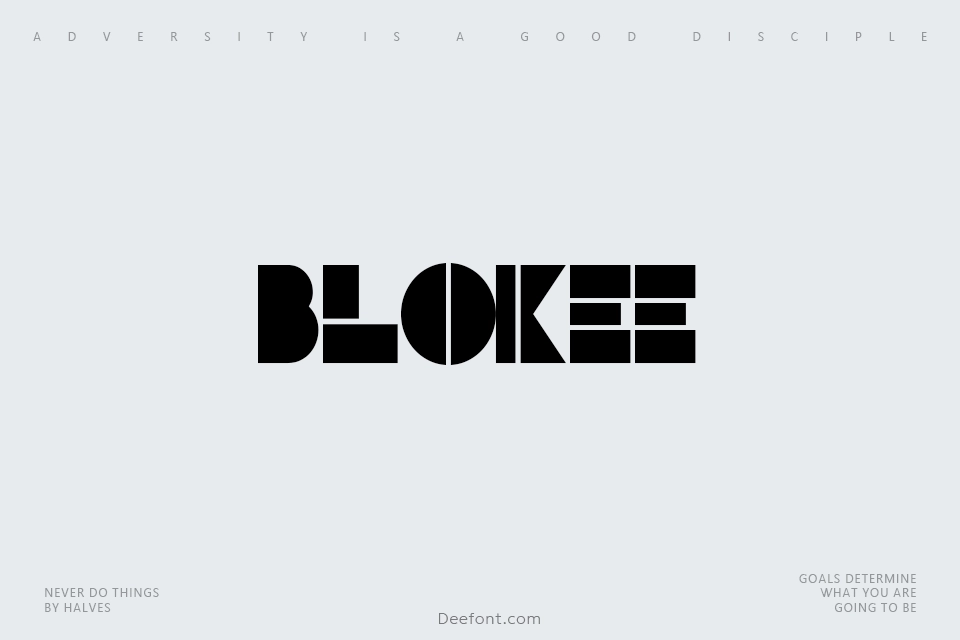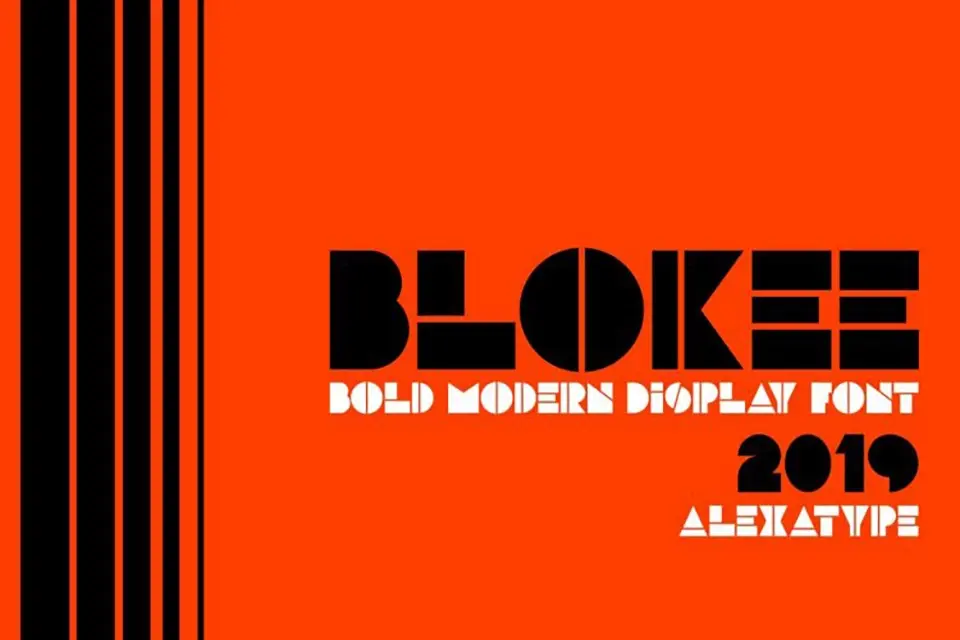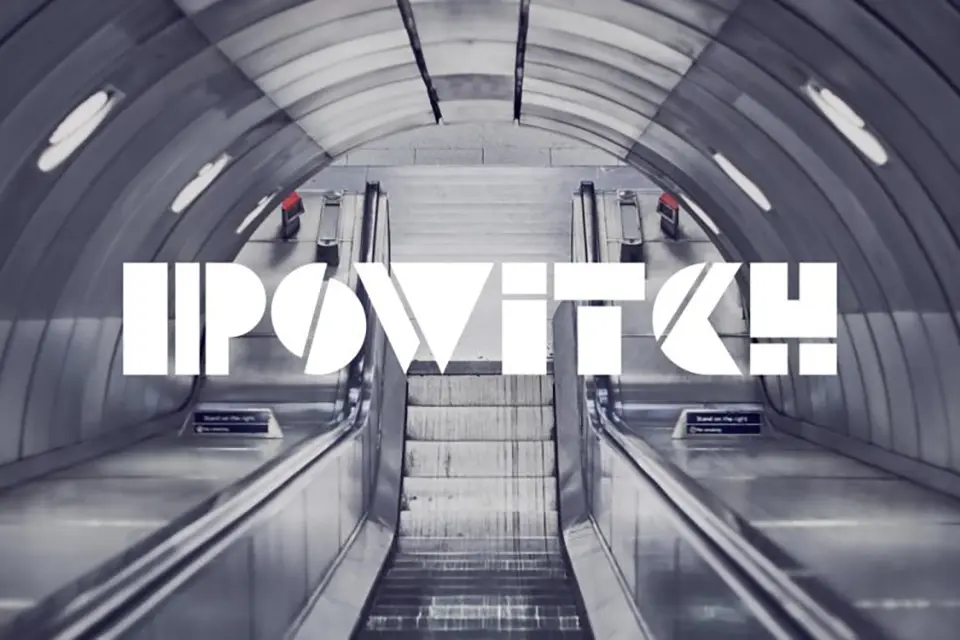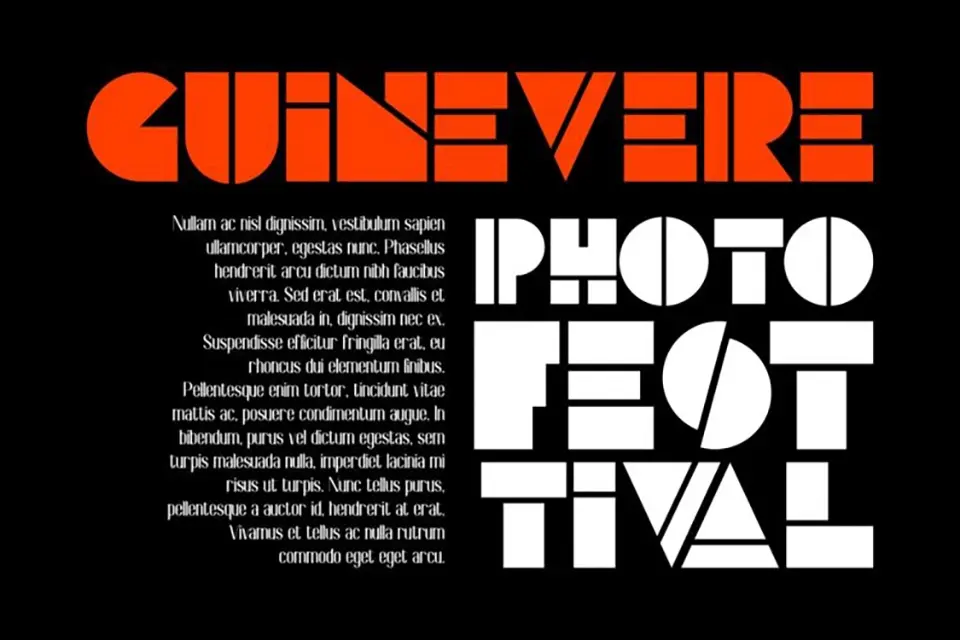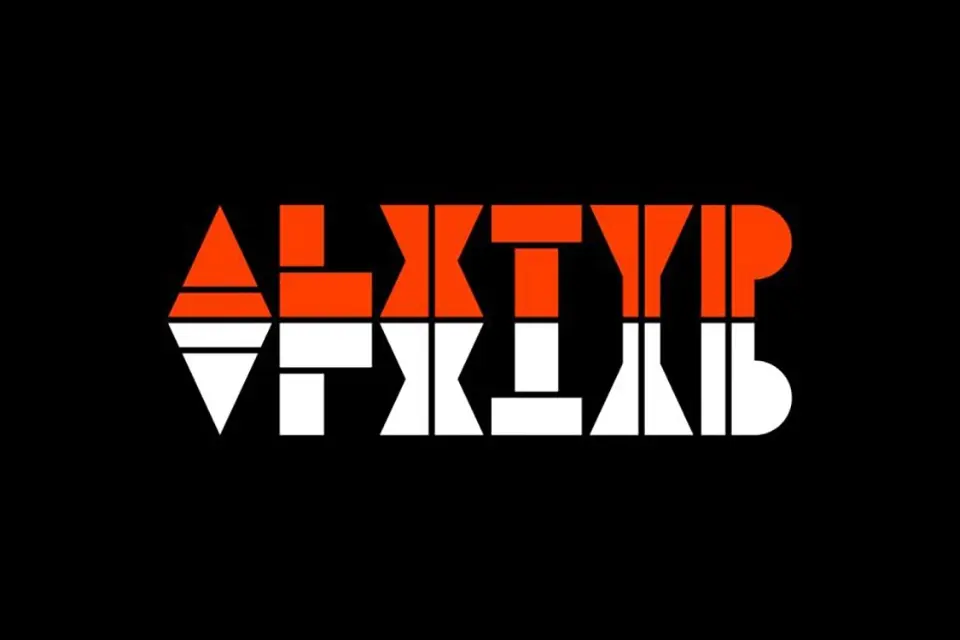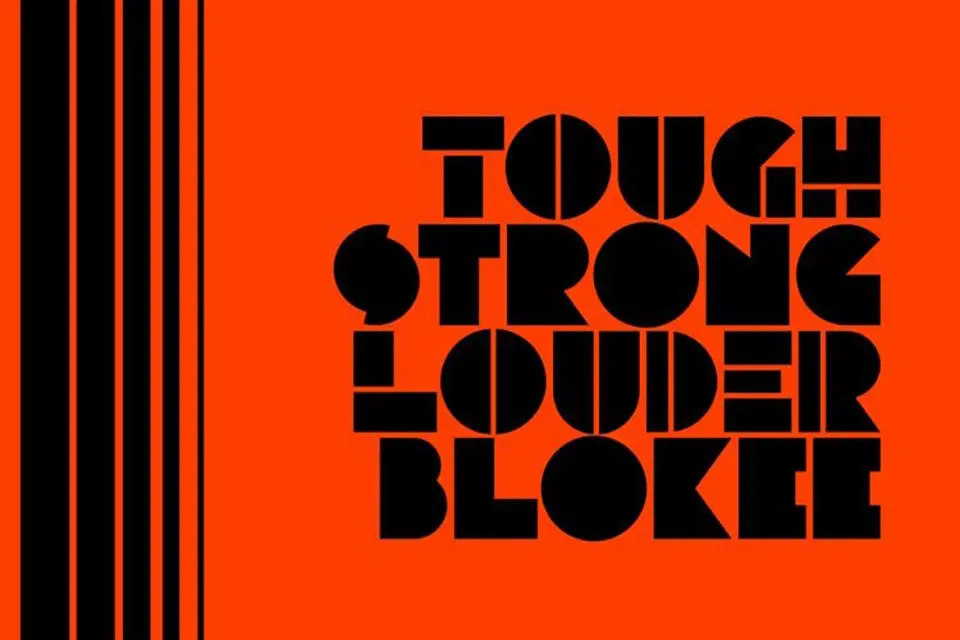
Blokee Font
Blokee is a modern block letter typeface featuring bold geometric-inspired design with full block uppercase letters and distinctive striped cut lowercase. Perfect for creating impactful headlines, logos, and posters, this contemporary font delivers powerful messaging with its strong, unembellished aesthetic. The unique combination of classic block styling and modern innovation makes it an ideal choice for tech-related visuals, entertainment projects, and any design requiring commanding visual presence.